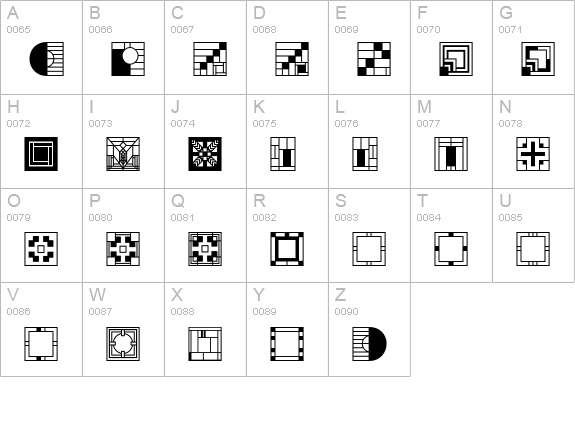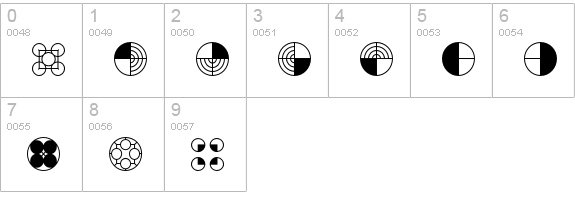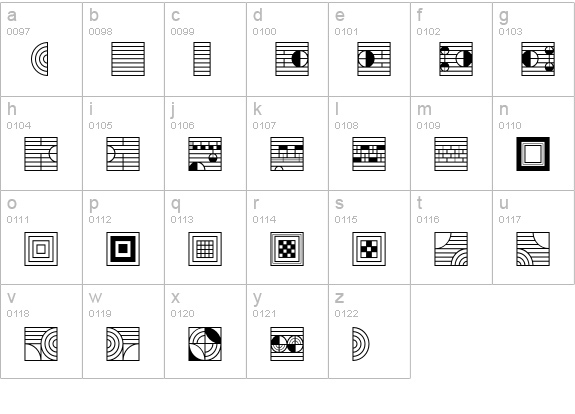
P22FLLWExhibition-Extras Font Details
P22FLLWExhibition-Extras font is a stunning collection of ornamental extras that will elevate any design project to new heights of elegance and sophistication. Designed by P22 Type Foundry, this font is a true masterpiece, showcasing intricate details and delicate curves that exude a timeless charm. With its wide range of decorative elements, P22FLLWExhibition-Extras font offers endless possibilities for adding a touch of refinement to your designs. From graceful flourishes to intricate borders, from stylish ornaments to exquisite frames, this font has everything you need to transform your creations into works of art. The versatility of P22FLLWExhibition-Extras font is truly remarkable. Whether you are working on a wedding invitation, a logo design, a book cover, or any other creative project, this font will effortlessly enhance the visual appeal and convey a sense of elegance and sophistication. And the best part? P22FLLWExhibition-Extras font is freely available to download at FontsMarket.com. Yes, that's right! You can now access this exceptional font without any cost, allowing you to elevate your designs without breaking the bank. So why wait? Download P22FLLWExhibition-Extras font today and unlock a world of exquisite design possibilities. Let your creativity soar and create stunning visuals that will leave a lasting impression on your audience.